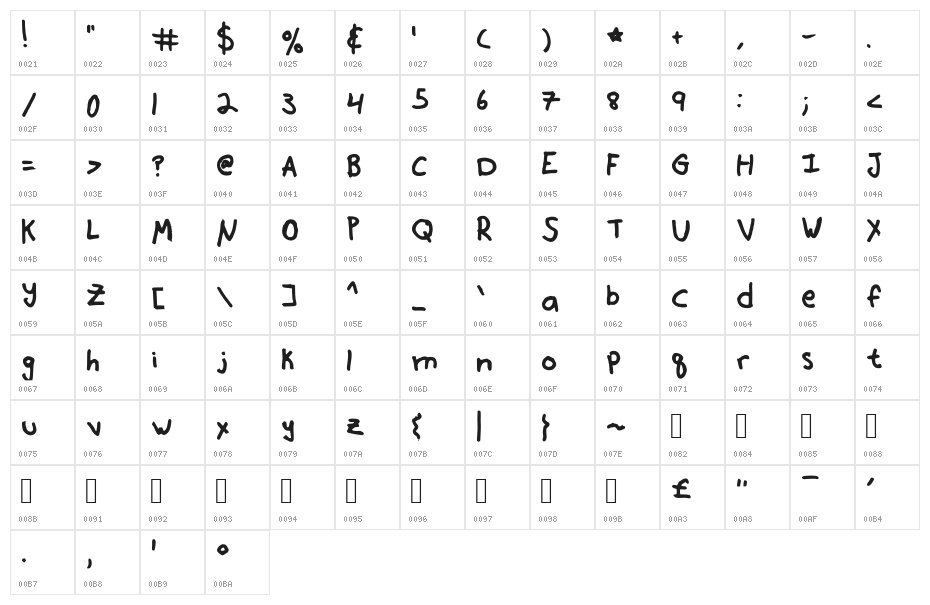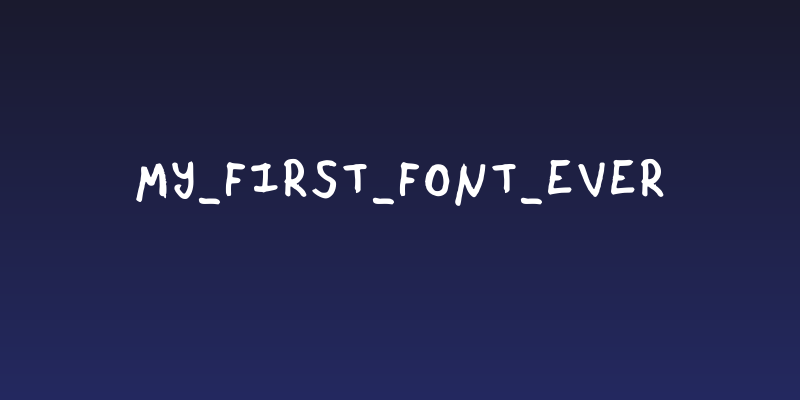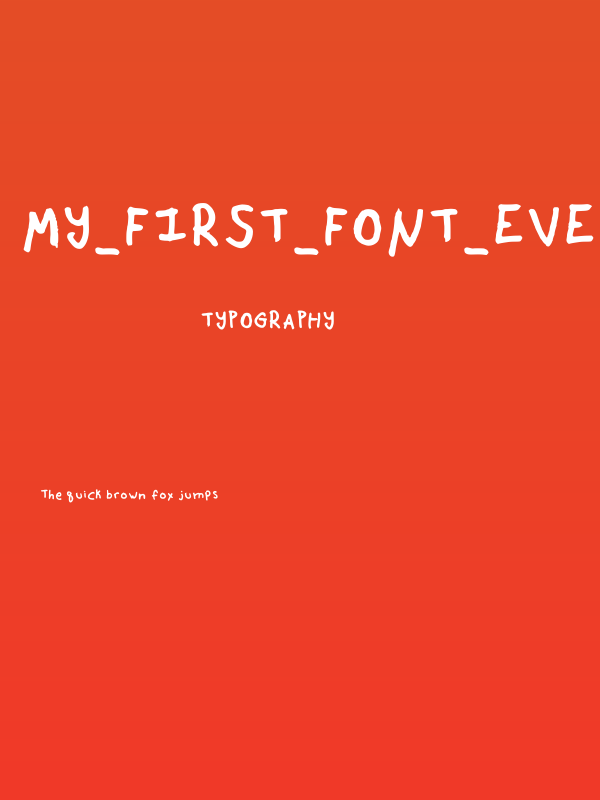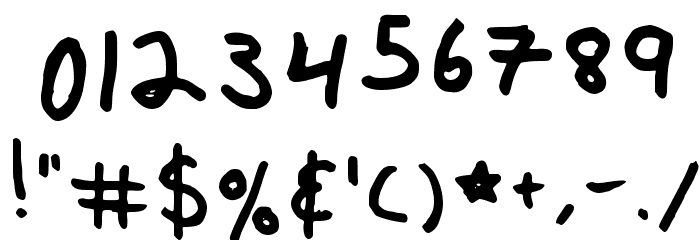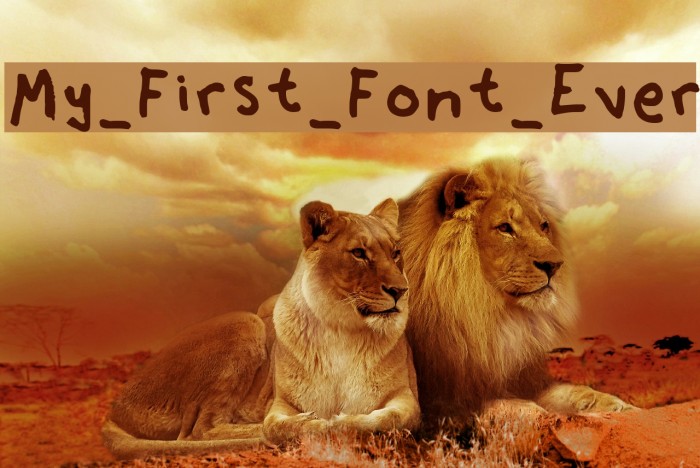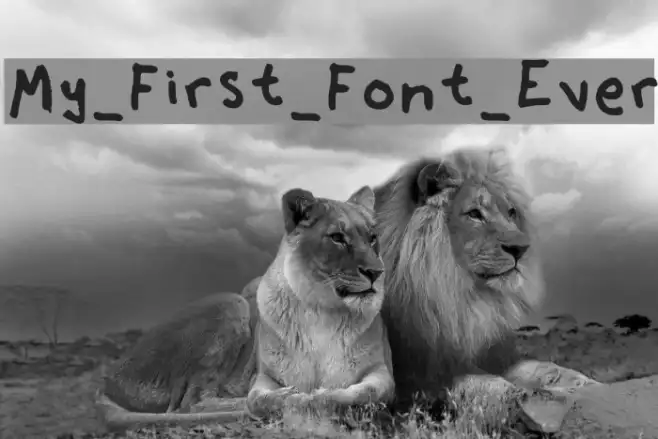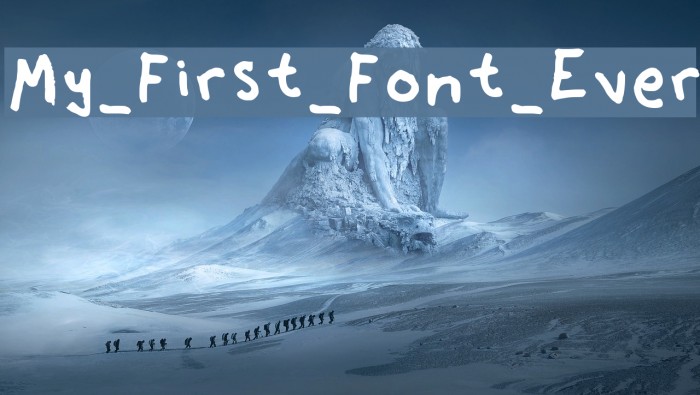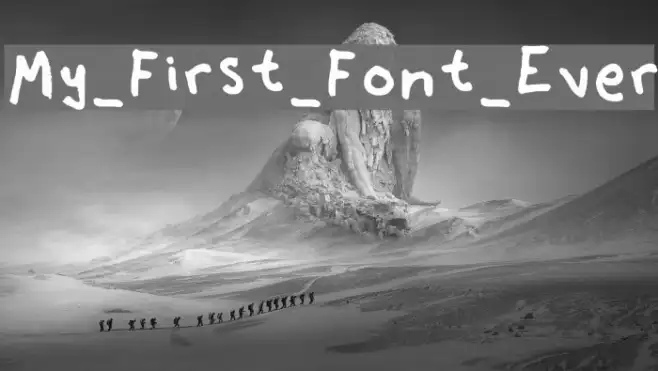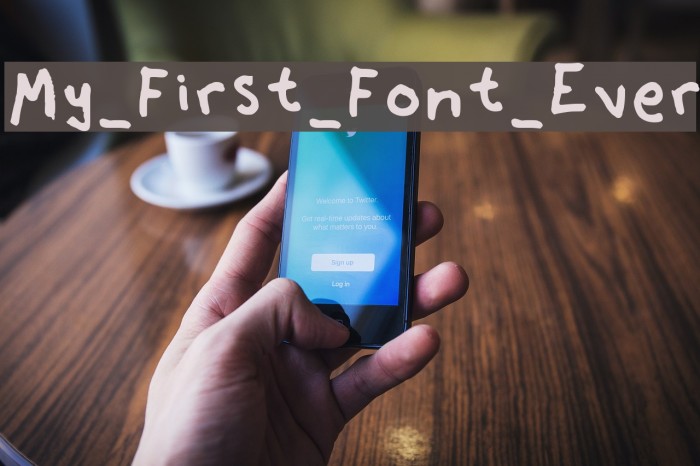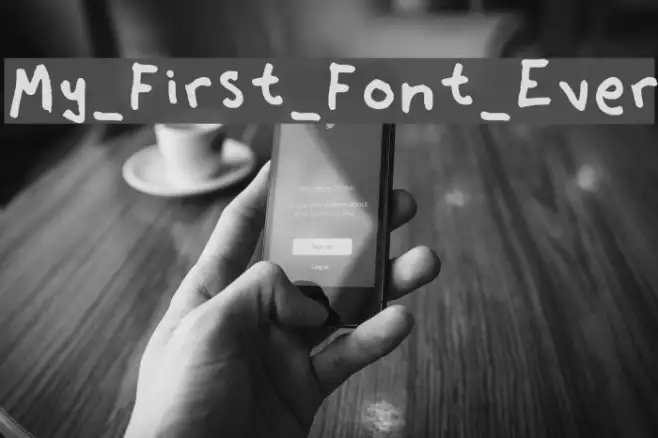
My_First_Font_Ever Font
My_First_Font_Ever Description
This font exhibits a playful and informal handwritten style, characterized by its uneven strokes and casual appearance. The letters are slightly irregular, giving it a personal and approachable feel. It features a mix of rounded and angular shapes, with a consistent stroke width that maintains readability. The numerals and special characters follow the same informal style, making it suitable for creative and fun projects. Its unique charm lies in its imperfect and organic look, which adds a touch of personality to any design.
| Proposed Projects | Ideal for children's books, greeting cards, personal notes, and creative branding projects. |